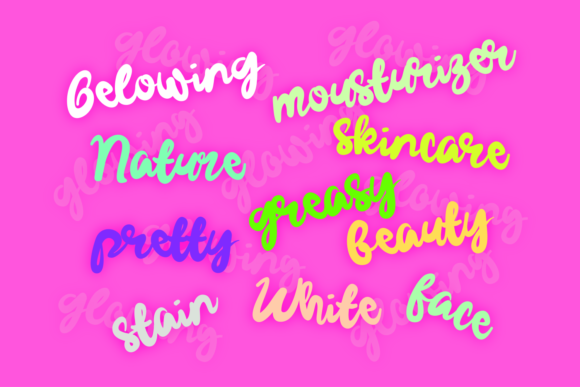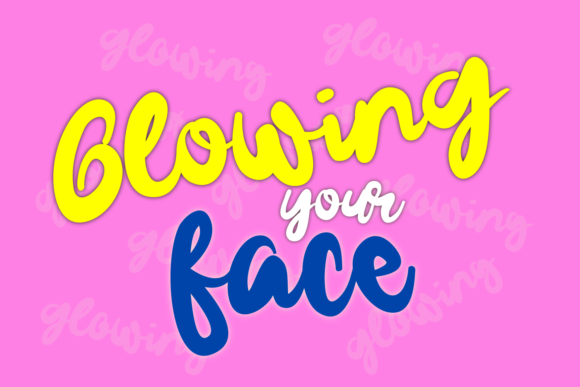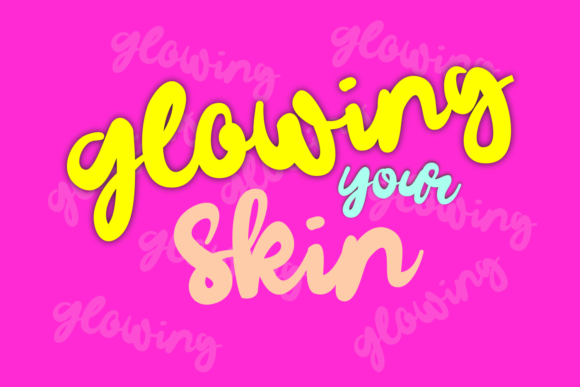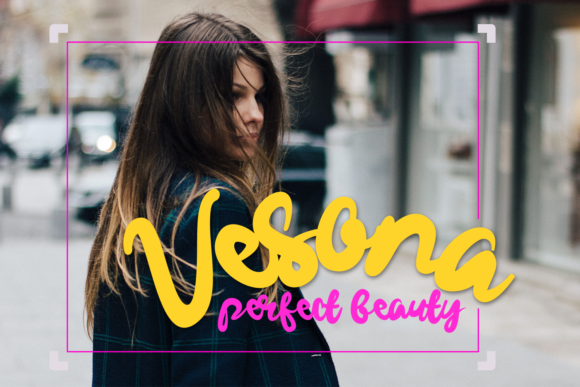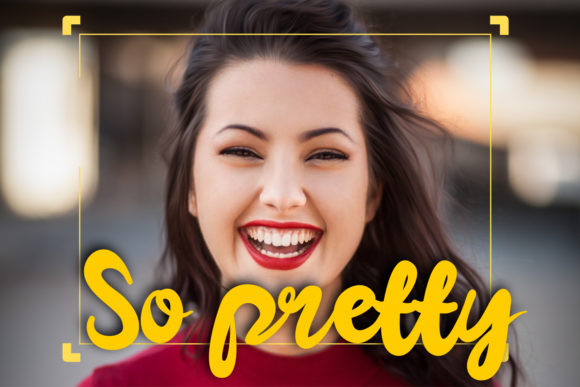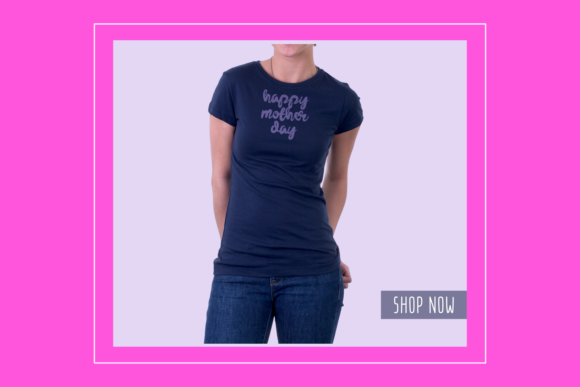
Have you ever stared at a blank page, waiting for the perfect font to bring your design to life? That’s exactly what happened to me last week, and I’m excited to share with you the solution I found – the Gelowing Font. This modern handwritten font is a game-changer for designers who crave a touch of personality in their work.
Gelowing Font is more than just a pretty face; it’s a carefully crafted tool designed to make your designs stand out. Its casual charm makes it incredibly versatile, allowing it to shine on busy backgrounds or as a standalone headline. Whether you’re working on a marketing campaign or creating a personal project, Gelowing Font is sure to be a valuable addition to your design toolkit.
Glowing Font Key Features
- Unique Characteristics: Features a unique, glowing effect that can be customized through various color and opacity options.
Glowing Font Review
I’ve had the chance to work with Glowing Font and I must say it’s a unique and eye-catching font. ✨ Here are some things that work well:
- Its glow effect is quite mesmerizing and adds a touch of sophistication to any design.
- The font is highly customizable, allowing designers to adjust the glow intensity, color, and even add some extra flair with the glow animation.
- The font family is quite extensive, with multiple styles to choose from, ensuring that designers can find the perfect fit for their project.
- The font can be quite heavy, which may not be suitable for projects where legibility is a top priority.
- The glow effect can be overwhelming in some cases, making it difficult to read the text.
- The font may not be compatible with older browsers or versions of software.
Overall, I’d say that Glowing Font is a great choice for designers looking to add a touch of glamour to their projects. While it has its limitations, the font’s unique features and customization options make it a great addition to any designer’s toolkit. ⚠️ Just be sure to use it judiciously and in the right context.
Alternatives to “Gelowing Font” for Designers
Great Vibes is a modern, elegant script font ideal for creating a friendly and approachable atmosphere. It’s perfect for use in branding, packaging, and advertising materials where a touch of sophistication is required.
Compared to Gelowing Font, Great Vibes has a more refined and polished appearance, making it suitable for a wider range of design applications.
Pacifico is a beautiful, handwritten font that evokes a sense of relaxation and serenity. It’s ideal for use in designs that require a touch of whimsy and playfulness, such as social media graphics, posters, and flyers.
Unlike Gelowing Font, Pacifico has a more casual and laid-back feel, making it perfect for designs that require a friendly and approachable tone.